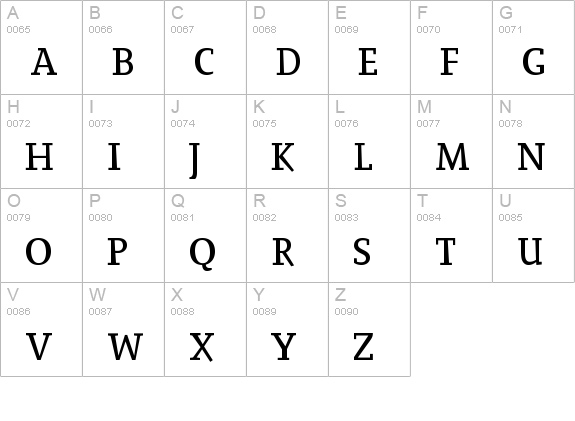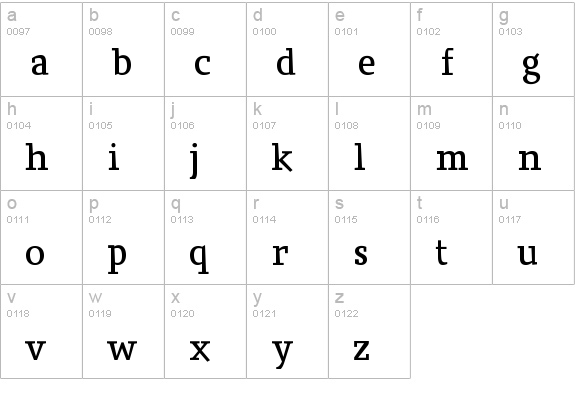
KeuleSlabSerifEF-Regular Font Details
KeuleSlabSerifEF-Regular is the standard, neutral variant in the KeuleSlabSerifEF typeface family \xE2\x80\x94 well suited to general body text, paragraphs, and standard typographic work.
KeuleSlabSerifEF-Regular is a striking and versatile font that exudes a sense of elegance and sophistication. Its clean lines and balanced proportions make it perfect for both display and body text. This font features a unique slab serif design, which adds a touch of modernity to its classic appeal. With its strong and sturdy letterforms, KeuleSlabSerifEF-Regular commands attention and makes a bold statement. Its smooth curves and generous spacing ensure legibility, even at smaller sizes. Whether used for headlines, logos, or editorial designs, this font delivers a professional and polished look. One of the best things about KeuleSlabSerifEF-Regular is that it is available for free download at FontsMarket.com. This means that you can easily access and enjoy the benefits of this exceptional font without any cost. Designed to enhance your creative projects, KeuleSlabSerifEF-Regular offers a wide range of possibilities for designers, artists, and typographers. So why wait? Embrace the elegance and versatility of KeuleSlabSerifEF-Regular and elevate your designs to new heights. Download this font for free at FontsMarket.com and experience the power of exceptional typography.